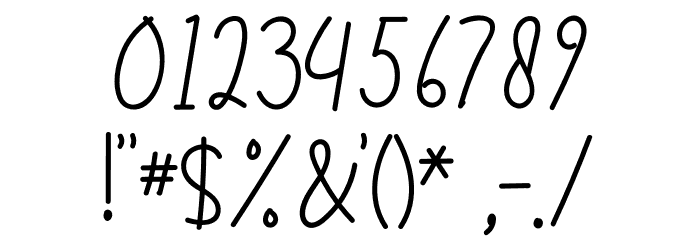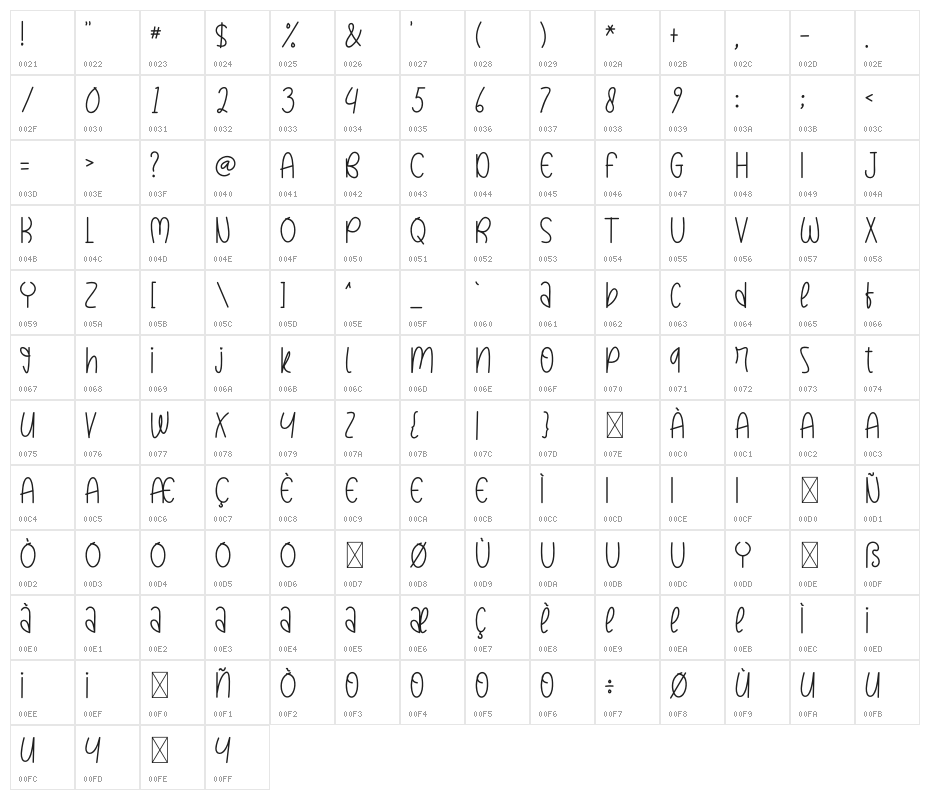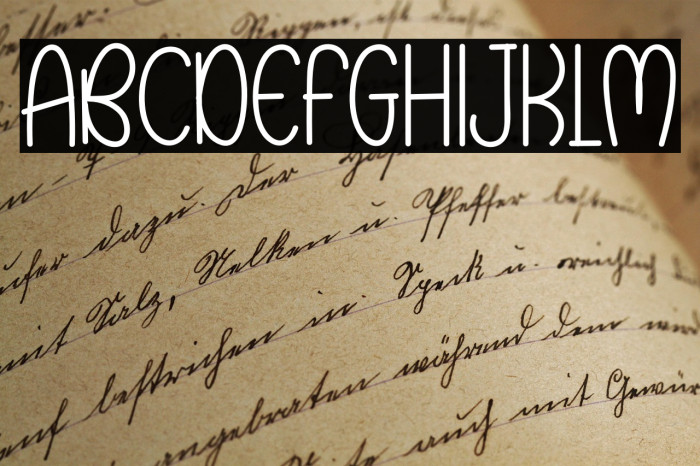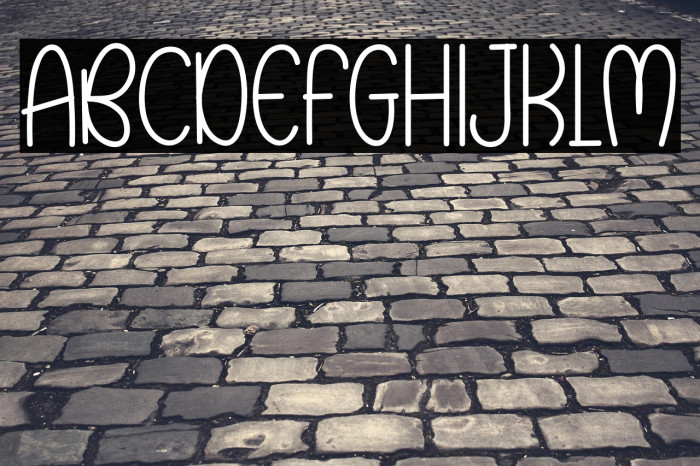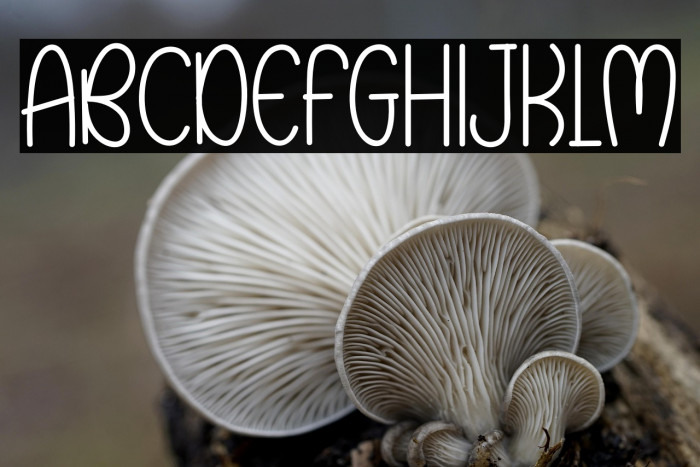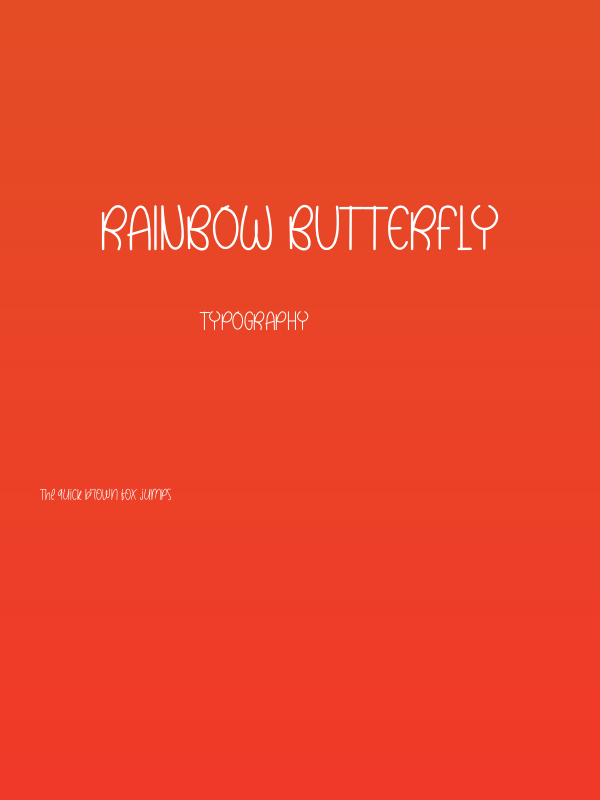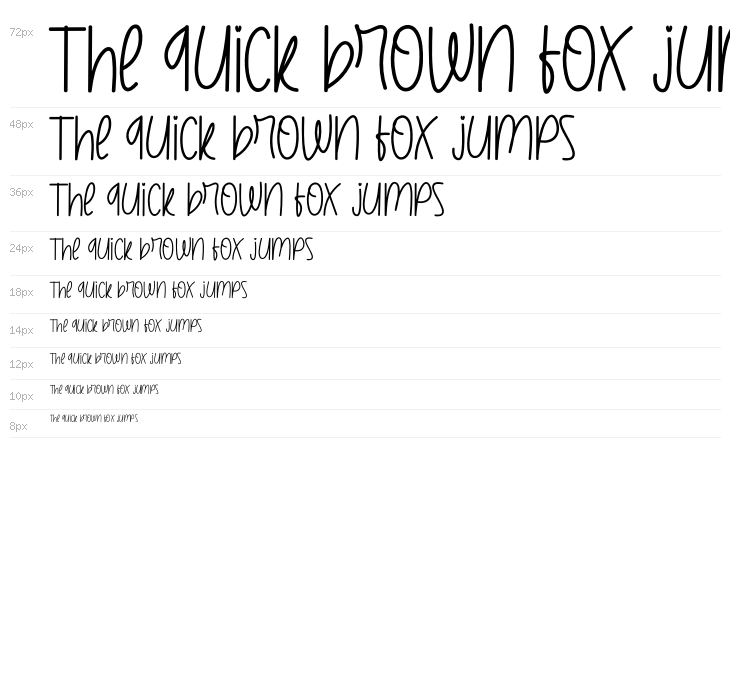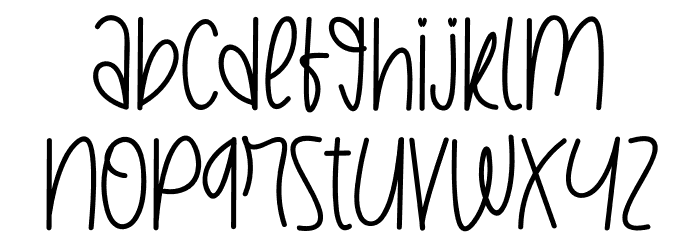
RAINBOW BUTTERFLY Font
RAINBOW BUTTERFLY Description
This playful and whimsical font features tall, narrow letters with a handwritten style. The characters have a consistent stroke width, giving them a clean and modern appearance. The uppercase and lowercase letters are distinct, with a slightly elongated form that adds to the font's charm. Numbers and special characters maintain the same playful aesthetic, making this font versatile for various creative projects. Its unique style is perfect for adding a personal touch to designs.
| Proposed Projects | Ideal for children's book covers, playful branding, greeting cards, and creative posters. |